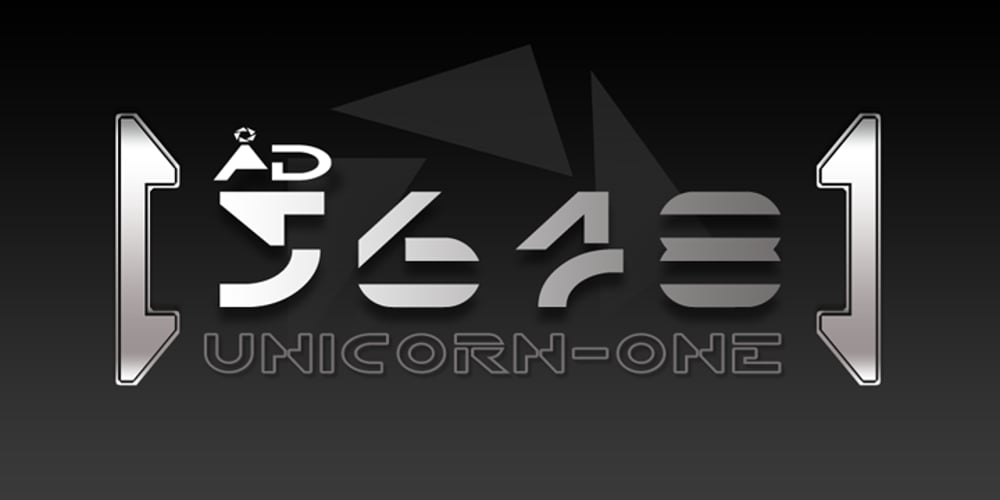
CRR NTN Font Family was designed by Antonio Cerri and published by Cerri Antonio. CRR NTN contains 2 styles and family package options. CRR NTN regular and outline, is a futuristic font family. It works well as an identity logo type and 3D work. Together using the outline and the regular font, you can create endless combinations.